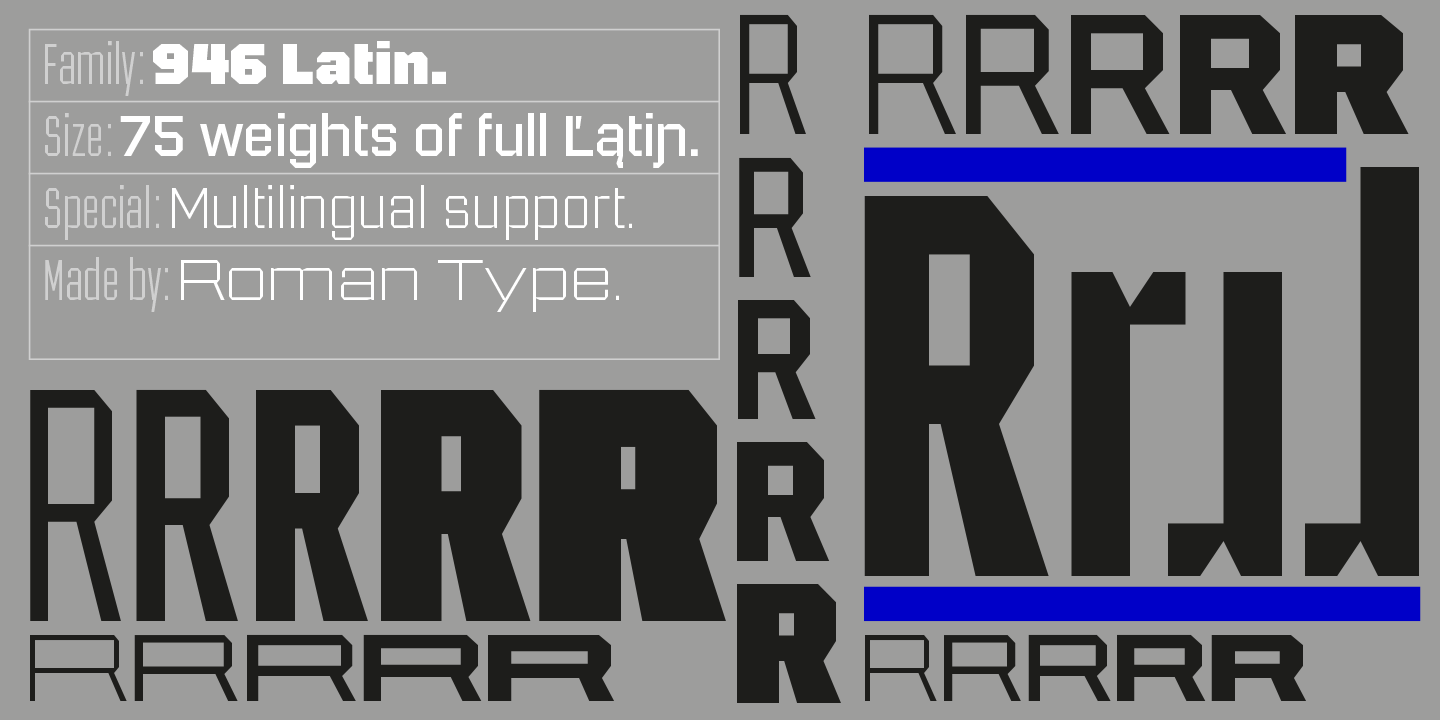
946 Latin Font is a distinctive and often bold typeface, perfect for designs that aim to convey a sense of modern uniqueness, industrial strength, or a slightly unconventional geometric aesthetic. Its precise construction, combined with a potential nod to technical drawings or digital interfaces, makes it an excellent choice for cutting-edge tech branding, gaming titles, architectural project labels, and experimental art installations. Imagine it gracing the interface of a high-tech dashboard, providing a stark and efficient feel to urban planning schematics, or adding a cool, futuristic vibe to electronic music album covers. This font is also superb for data visualization, web banners that demand attention, and any project where clarity, structure, and a forward-thinking visual identity are key. It doesn't just display text; it asserts a bold, contemporary statement with a touch of calculated precision.
What makes 946 Latin Font so exciting is its ability to blend functional clarity with a unique, almost industrial or digital personality. It possesses a distinctive character that feels both robust and innovative, making it incredibly effective for conveying information with modern authority. This unique combination allows designers to create visually compelling content that is both highly readable and effortlessly contemporary. It’s a font that speaks with a clean, confident voice, making it ideal for brands and content creators who want to convey reliability, technological prowess, and a sophisticated, no-fuss aesthetic. Its strong, often condensed or angular, appeal can make any design feel more cohesive and effortlessly cutting-edge, drawing the eye with its refined structure.
The 946 Latin Font family, given its often artistic and specialized design, might not feature the extensive weight variations seen in more traditional typefaces. However, it typically offers different styles or complementary elements that enhance its unique aesthetic and provide creative flexibility. You might find variations such as:
• 946 Latin Regular (the primary distinctive style)
• 946 Latin Bold (for a stronger presence)
• 946 Latin Light (for a more ethereal, minimalist feel)
• 946 Latin Monospace (if a fixed-width version is available for coding/data)
• 946 Latin Outline (for a different visual emphasis)
These variations empower designers to maintain a consistent thematic aesthetic while adding depth and visual punch to their compositions. The availability of 946 Latin Font Free Download offers an excellent opportunity to explore its unique blend of futuristic design and intelligent precision for your personal design ventures.